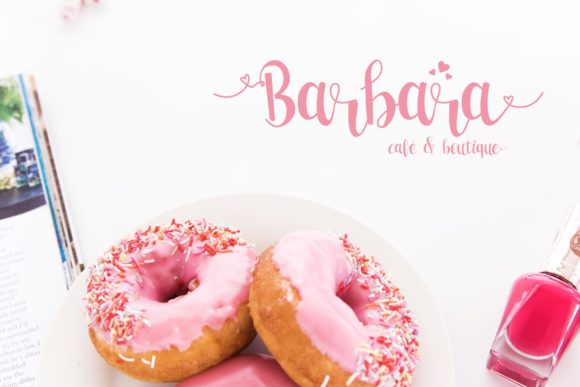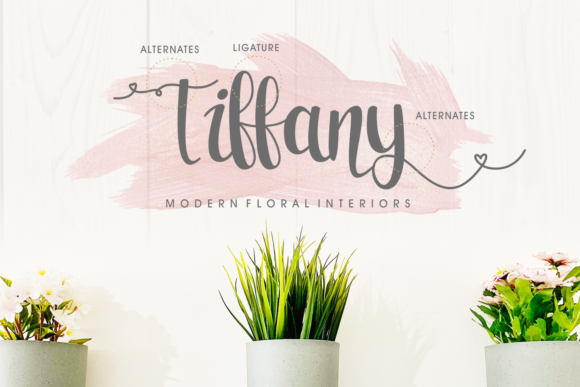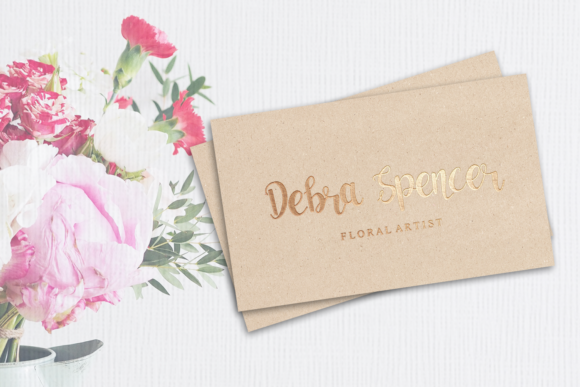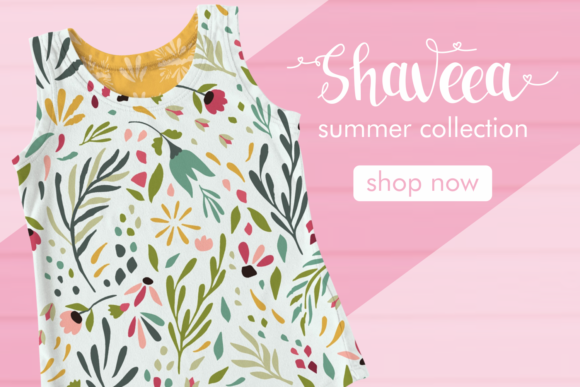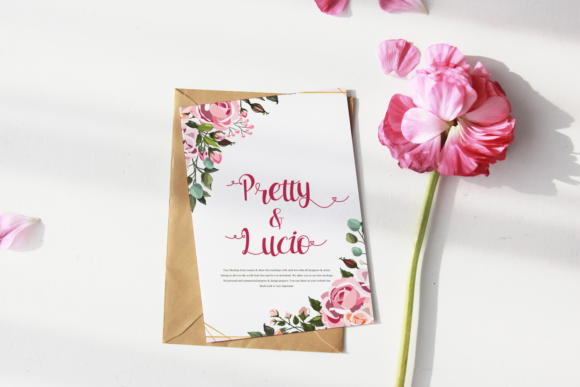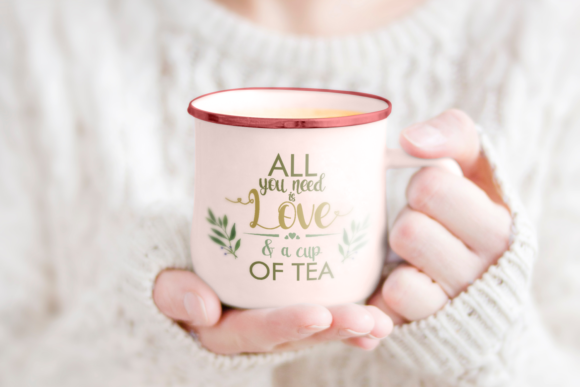
Introduction to Love Roulette Font
Have you ever stared at a blank canvas, searching for the perfect font to bring your creative vision to life? I know I have. It’s that moment when inspiration strikes, and you know exactly what you want to achieve – a design that’s both elegant and captivating. That’s where Love Roulette Font comes in, a high-quality script font that’s sure to elevate any design project.
As a valuable resource for designers, Love Roulette Font offers a unique blend of classic typography and modern style, making it perfect for headlines, blocks of text, and even creative projects that require a touch of whimsy. Whether you’re working on a web design, print material, or moving images, this fantastic font is sure to impress. And the best part? It’s available for a free download, complete with a transparent background, making it easy to integrate into your design.
Key Features of Love Roulette Font
- Unique, cursive design with a touch of whimsy, perfect for adding a romantic or playful touch to your creative project.
- Includes a full character set, including uppercase and lowercase letters, numbers, and punctuation marks.
- Love Roulette Font is a versatile design resource suitable for various creative projects, from wedding invitations to digital art.
Honest Review: Love Roulette Font
As a designer, I’m always on the lookout for high-quality design resources that can elevate my creative projects. The Love Roulette Font is one such find that caught my attention. In this review, I’ll share my honest thoughts on what makes this font special and any limitations it may have.
- ✨ The Love Roulette Font has a beautiful, hand-drawn feel to it, making it perfect for creative projects that require a touch of whimsy.
Any limitations:
- ⚠️ The font may not be suitable for formal or corporate projects due to its playful, handwritten style.
- ⚠️ Some users may find the font to be a bit too decorative, which can make it difficult to read in certain contexts.
Overall, the Love Roulette Font is a great addition to any designer’s toolkit. While it may have some limitations, its unique style and free download make it an excellent option for creative projects that require a touch of personality.
Tips for Getting the Most Out of Love Roulette Font
To get the most out of the Love Roulette Font, experiment with different font sizes, colors, and combinations to create unique and eye-catching designs.
The Love Roulette Font is perfect for:
- Wedding invitations and decorations
- Valentine’s Day cards and gifts
- Romantic social media graphics and posts